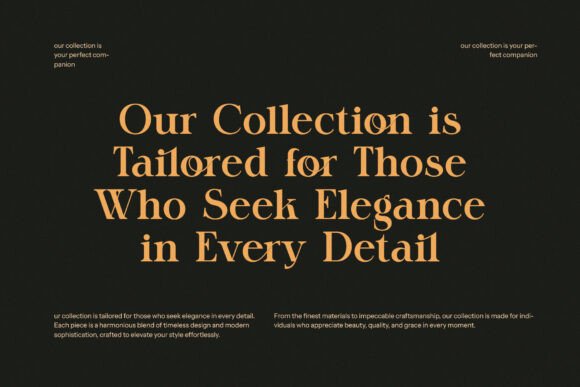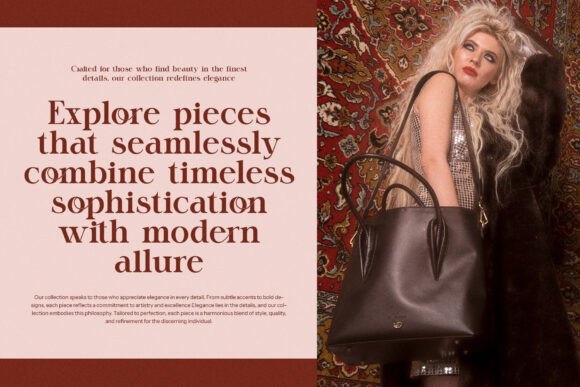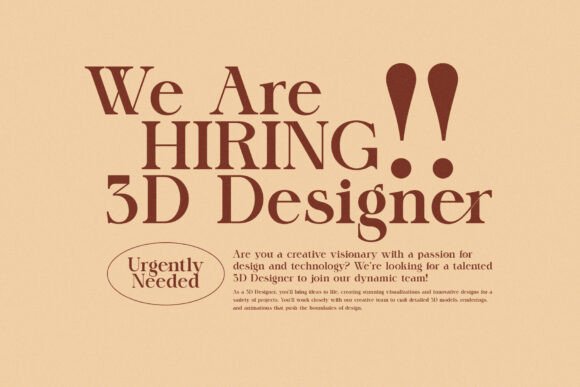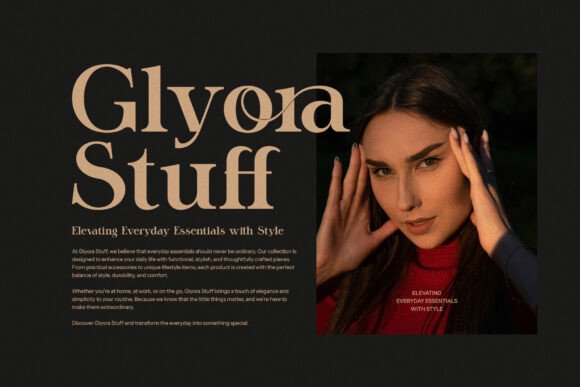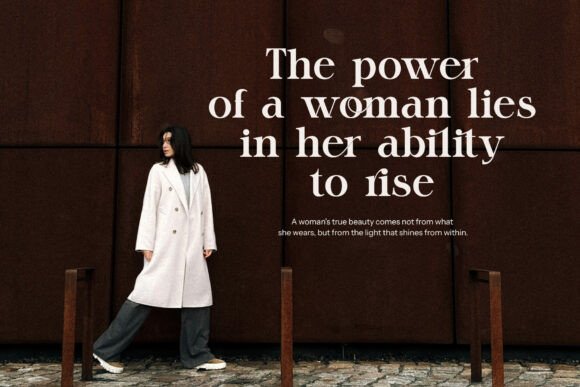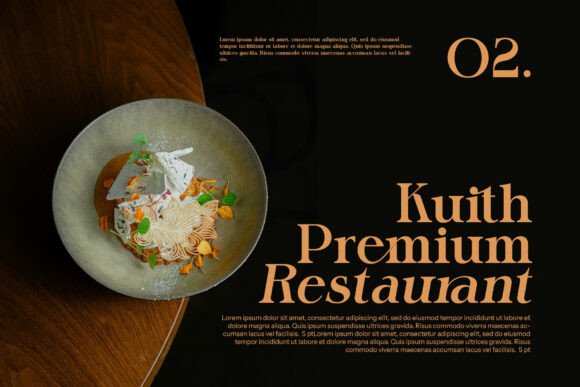
The Elusive Font: A Designer’s Quest for Elegance
I still remember the countless hours I spent searching for the perfect font for a luxury branding project. My client wanted something that exuded sophistication, elegance, and a touch of boldness. I scoured the internet, tried out numerous fonts, but nothing seemed to fit the bill. That was until I stumbled upon the Gidora Font. ✨
What is Gidora Font?
Gidora Elegant Serif Font is a refined and contemporary typeface that seamlessly blends sophistication with a touch of boldness. With its carefully crafted serifs and striking letterforms, Gidora exudes timeless elegance while maintaining a modern appeal. This font’s unique ligatures and alternate characters add a level of artistry and individuality, making it ideal for projects that demand attention to detail and distinction.
- ✨ Elegant and sophisticated: Gidora’s refined serifs and letterforms make it perfect for luxury branding and high-end designs.
- ✅ Versatile: This font can be used in various formats, from digital to print, and is suitable for a range of creative projects.
- 💡 Unique ligatures and alternates: Gidora’s artistic features add a touch of individuality to any design.
- 📚 Readable and stylish: The font’s graceful curves and distinctive serifs create a sense of opulence, elevating designs to a new level of refinement.
While Gidora is an exceptional font, there are a few things to keep in mind: 🤔
- ⚠️ Occasional kerning issues: As with any font, some users may experience kerning issues, especially when using certain character combinations.
- ⚠️ Limited availability of certain characters: Some users may find that certain characters, such as ligatures or alternates, are not readily available.
The Designer Inspiration Behind Gidora
The story behind Gidora’s creation is one of passion and dedication. The font’s designer, inspired by the elegance of classic serif fonts, sought to create a typeface that would blend sophistication with a touch of boldness. Through countless hours of refinement and iteration, Gidora was born – a font that embodies the perfect balance of style and readability.
Q: What is the best way to use Gidora Font?
A: Gidora Font is best used for luxury branding, high-end logos, and premium website designs. Its elegant and sophisticated features make it perfect for projects that demand attention to detail and distinction.
Q: Is Gidora Font suitable for digital use?
A: Yes, Gidora Font is suitable for digital use. Its clear and readable features make it perfect for use on websites, mobile apps, and other digital platforms.